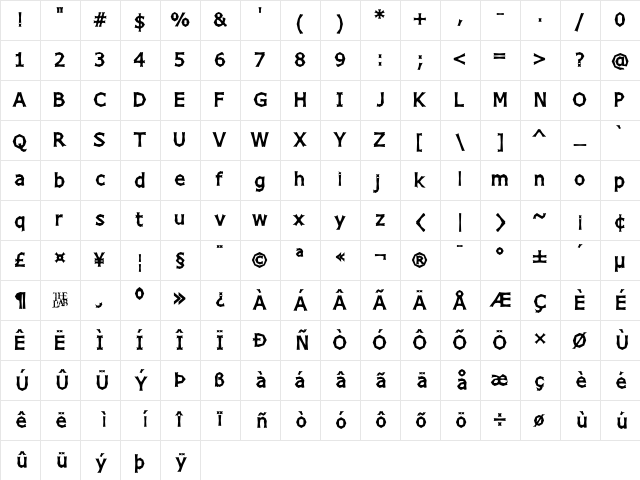
Chizz Regular Font Preview
Chizz Regular
Chizz Regular Font Details
| Designer | Graham Meade & Apostrophe |
Design Context for Chizz Typeface
Chizz is a composed and adaptable typeface that performs quietly and consistently across a wide range of design contexts.